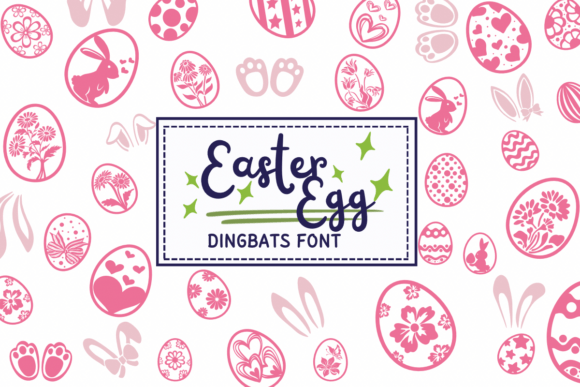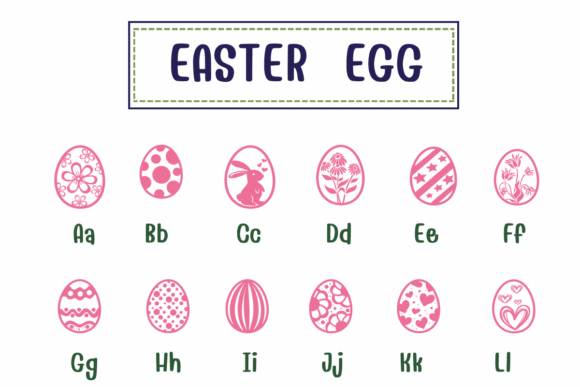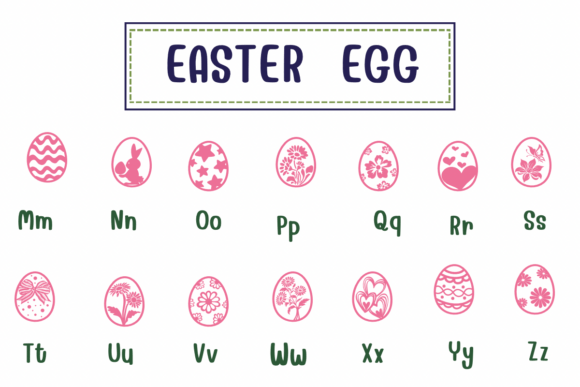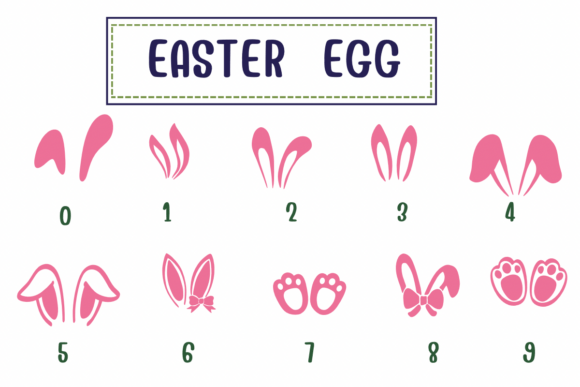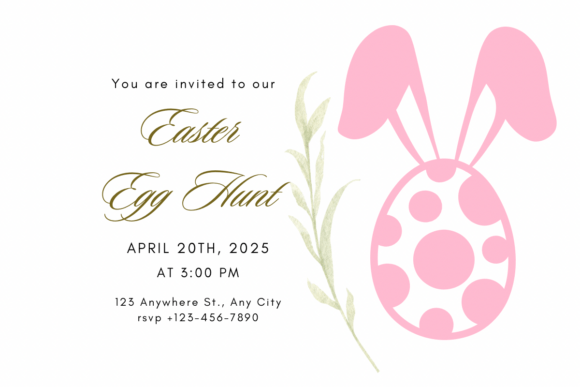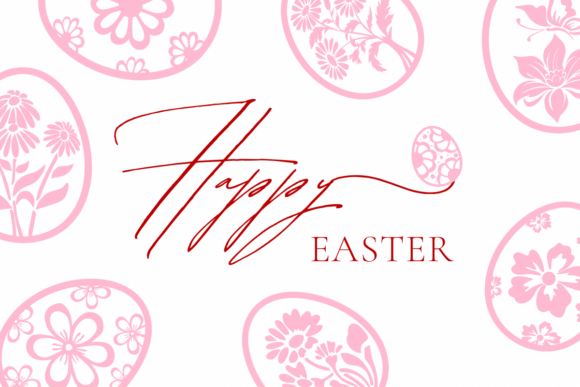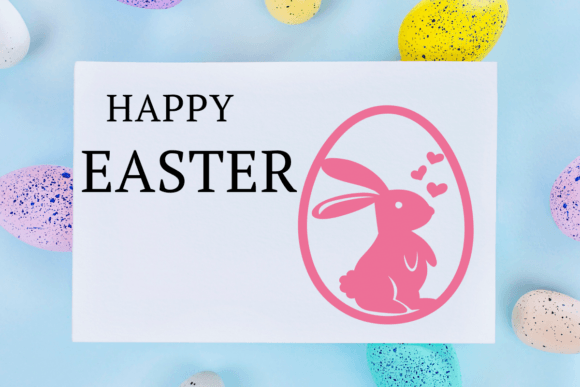
The Perfect Addition to Your Creative Projects
You know that moment when you’re brainstorming ideas for a special project and everything just falls into place? You’re scrolling through font options, and suddenly, you stumble upon the perfect fit. For designers and crafty enthusiasts, finding that one special font can make all the difference in elevating a project from ordinary to extraordinary.
Enter the Easter Egg Font, a delightful dingbats font that brings a touch of whimsy and playfulness to any creative endeavor. With its cute theme and endless possibilities, this font is perfect for adding a personal touch to wedding invitations, DIY crafts, decorations, logos, and so much more. Whether you’re a seasoned designer or a crafty beginner, the Easter Egg Font is sure to inspire your next creative project.
Easter Egg Font Key Features
- Font Style: Easter Egg Font is a unique, hand-drawn, and whimsical font, ideal for adding a playful touch to designs.
- Unique Characteristics: Easter Egg Font features a distinctive, egg-like shape, with rounded edges and a subtle texture, giving it a one-of-a-kind appearance.
Easter Egg Font Review
Overall, I have mixed feelings about the Easter Egg Font. While it has some unique and interesting features, it also has some limitations that prevent it from being a top-tier font.
- Colorful and playful aesthetic: The Easter Egg Font is perfect for designs that need a pop of color and a fun, whimsical feel.
- Highly customizable: The font can be easily customized to fit your design needs, with a wide range of color options and styling possibilities.
- Readability issues: In some cases, the font can be difficult to read, especially at smaller sizes or in complex layouts.
- Lack of sophistication: While the font is playful and fun, it may not be suitable for more formal or professional designs.
- Not ideal for body text: The font is best used for headings, titles, or other design elements where you want to draw attention.
Overall, I would recommend the Easter Egg Font for designers who are looking for a unique and eye-catching font for their designs. However, it may not be the best choice for body text or more formal designs.
Use Easter Egg Font for:
– Creating eye-catching titles and headings
– Adding a playful touch to your designs
– Highlighting important information or calls-to-action
– Creating a retro or vintage vibe in your designs